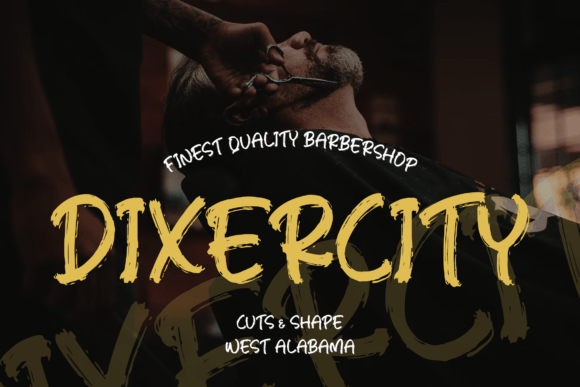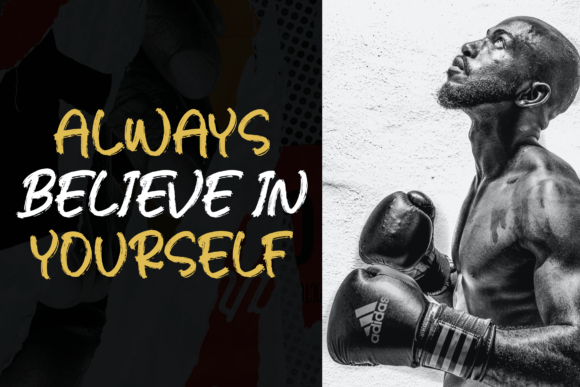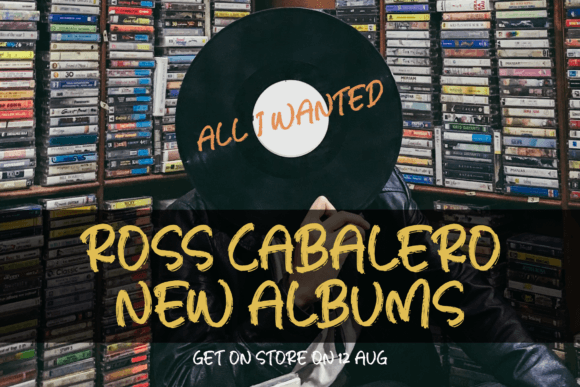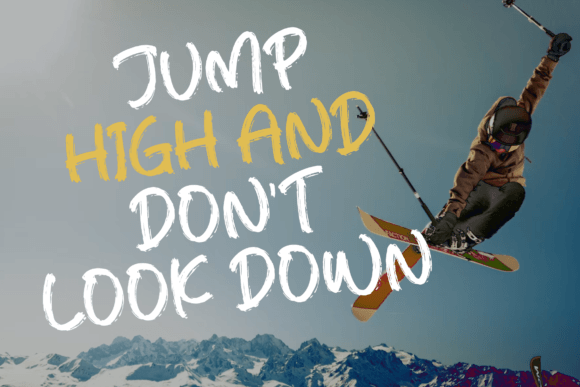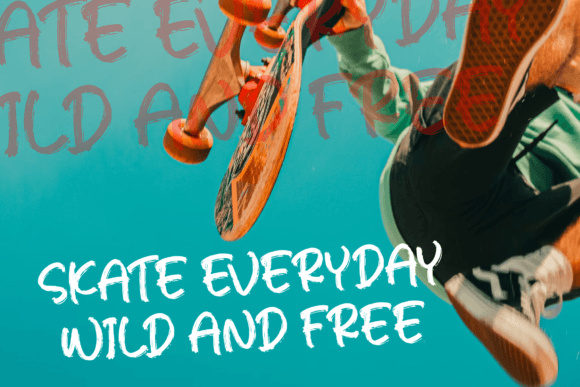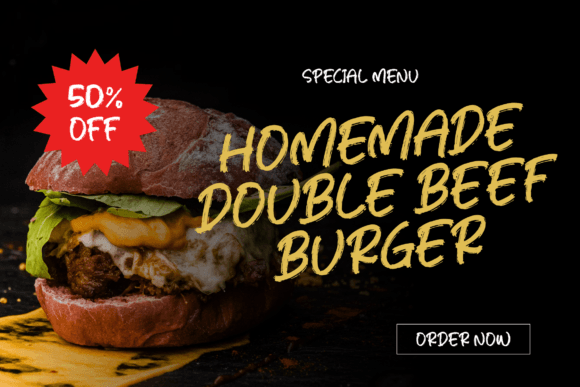
Barehop Font: Elevate Your Designs with a Cool and Trendy Handwritten Brush Font
Are you tired of using the same old fonts in your designs? Do you want to add a touch of personality and whimsy to your creations? Look no further than Barehop Font, a cool and trendy handwritten brush font that’s sure to elevate your font library. In this article, we’ll dive into the features and benefits of Barehop Font, and explore how it can be used to take your designs to the next level.
What is Barehop Font?
Barehop Font is a modern, handwritten brush font that’s perfect for designers and crafters looking to add a personal touch to their work. With its unique, cursive style and varied letterforms, Barehop Font is sure to stand out from the crowd. Whether you’re creating a logo, social media graphics, or a craft project, Barehop Font is an incredible asset to have in your font library.
Key Features of Barehop Font
- Handwritten brush style: Barehop Font has a distinctive, handwritten look that’s perfect for creating personal and engaging designs.
- Varied letterforms: Each letter in Barehop Font has a unique, cursive style that adds to the font’s charm and character.
- Cool and trendy: Barehop Font is perfect for designers who want to stay on top of the latest design trends.
Benefits of Using Barehop Font
So why should you choose Barehop Font for your designs? Here are just a few benefits of using this amazing font:
- Adds personality to your designs: Barehop Font’s unique, handwritten style adds a touch of personality to any design.
- Versatile: Barehop Font can be used for a wide range of design projects, from logos and social media graphics to craft projects and more.
- Elevates your brand: By using Barehop Font in your designs, you can create a consistent, recognizable brand that stands out from the competition.
- Increases engagement: The personal, whimsical touch of Barehop Font can help increase engagement and connect with your audience.
How to Use Barehop Font in Your Designs
Using Barehop Font in your designs is easy! Here are a few tips to get you started:
- Pair with other fonts: Barehop Font pairs well with other fonts, so don’t be afraid to experiment with different combinations.
- Use in headlines and titles: Barehop Font is perfect for headlines and titles, where its unique style can really shine.
- Add to your social media graphics: Use Barehop Font to add a personal touch to your social media graphics and connect with your audience.
- Experiment with colors and textures: Barehop Font looks great in a variety of colors and textures, so don’t be afraid to get creative!
In conclusion, Barehop Font is a cool and trendy handwritten brush font that’s perfect for designers and crafters looking to elevate their designs. With its unique, cursive style and varied letterforms, Barehop Font is sure to add a touch of personality and whimsy to any creation. Whether you’re creating a logo, social media graphics, or a craft project, Barehop Font is an incredible asset to have in your font library. So why wait? Download Barehop Font today and start taking your designs to the next level!